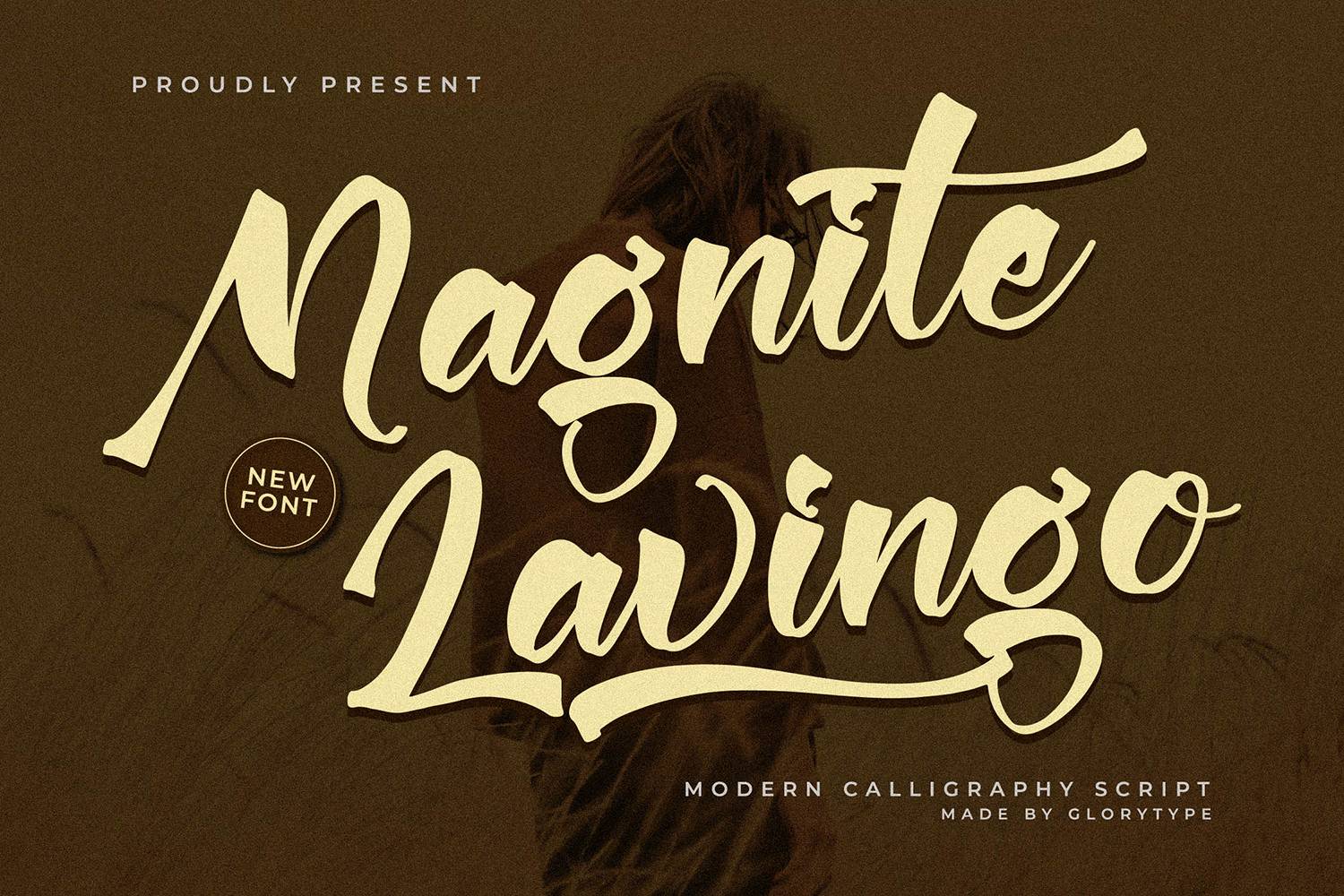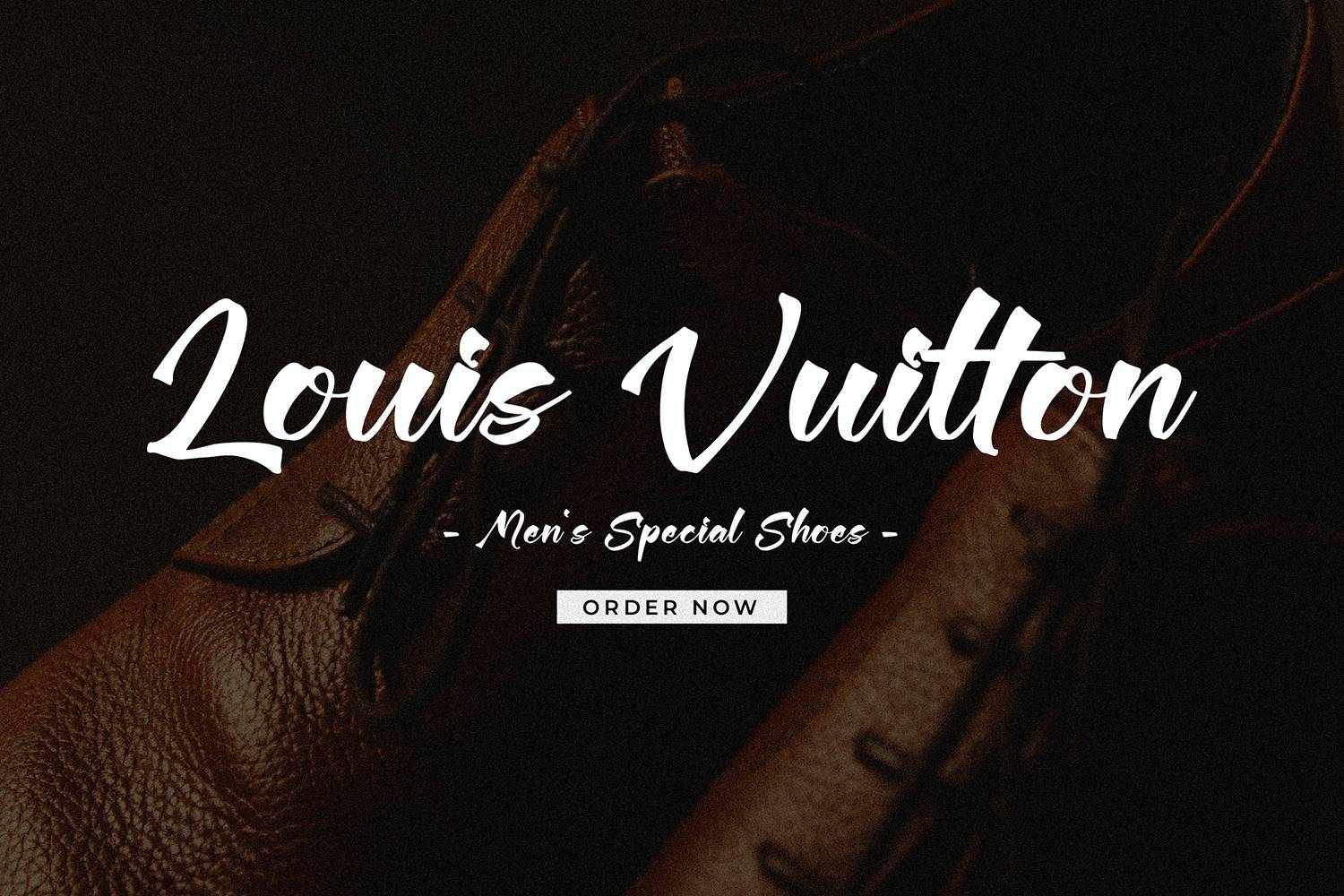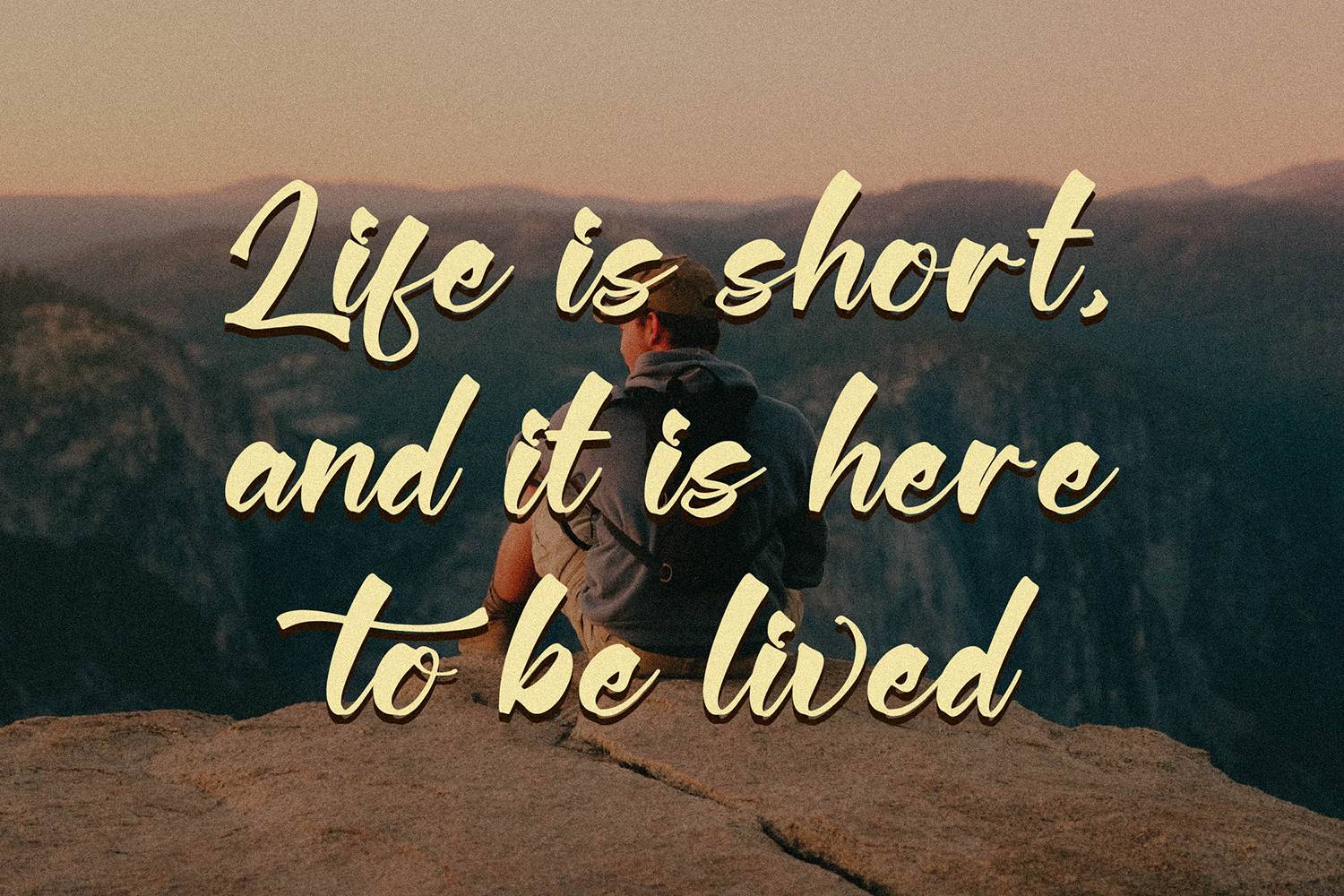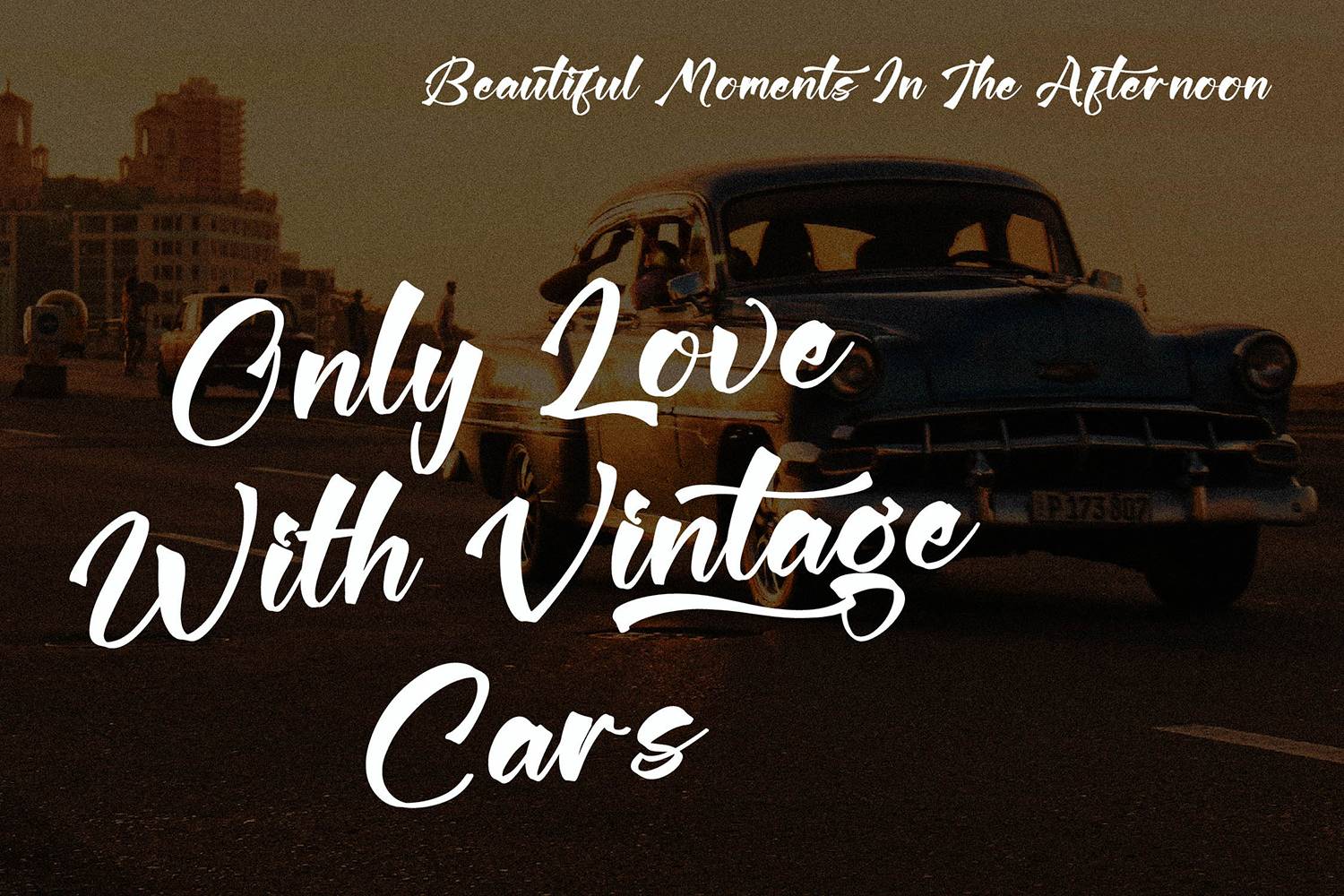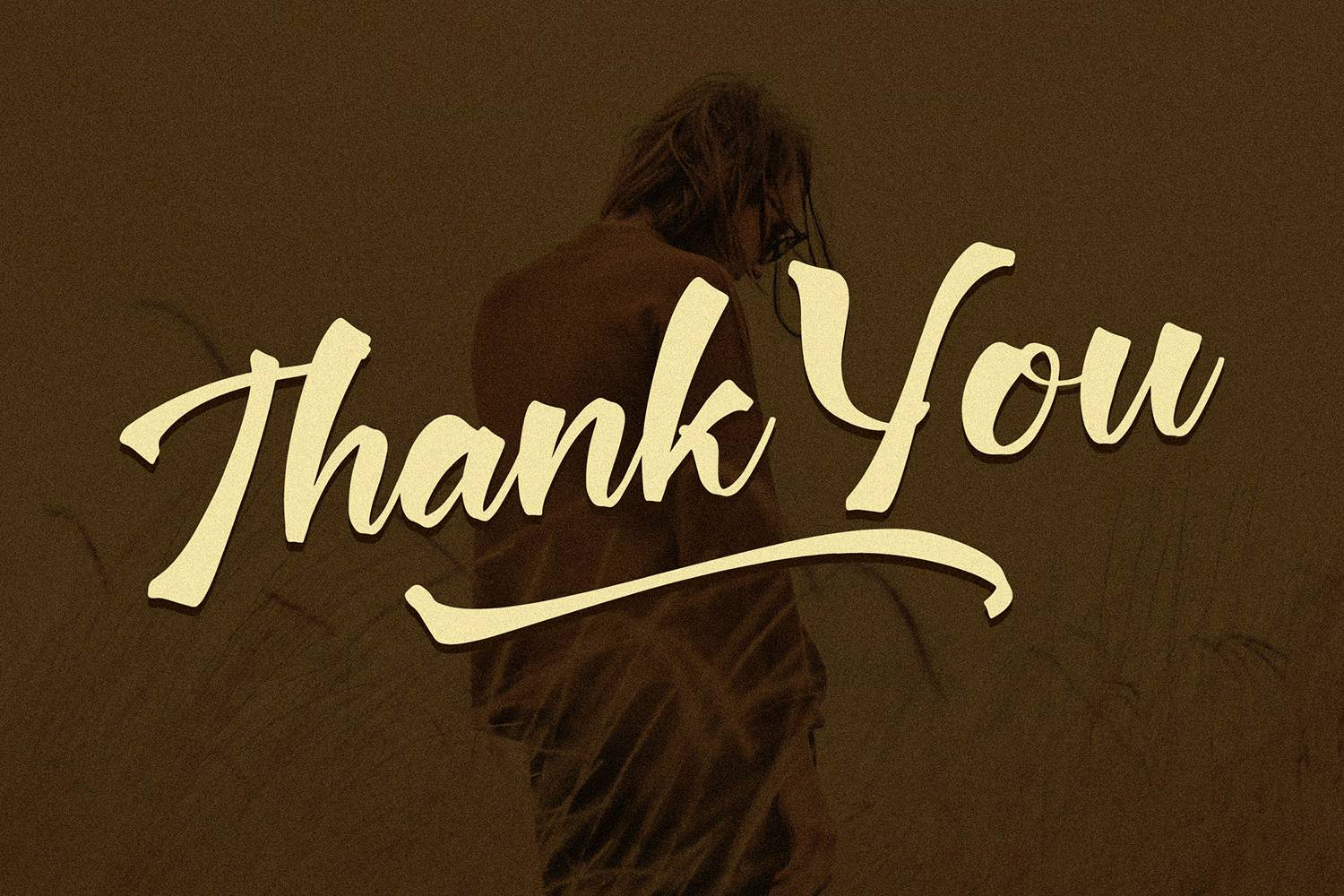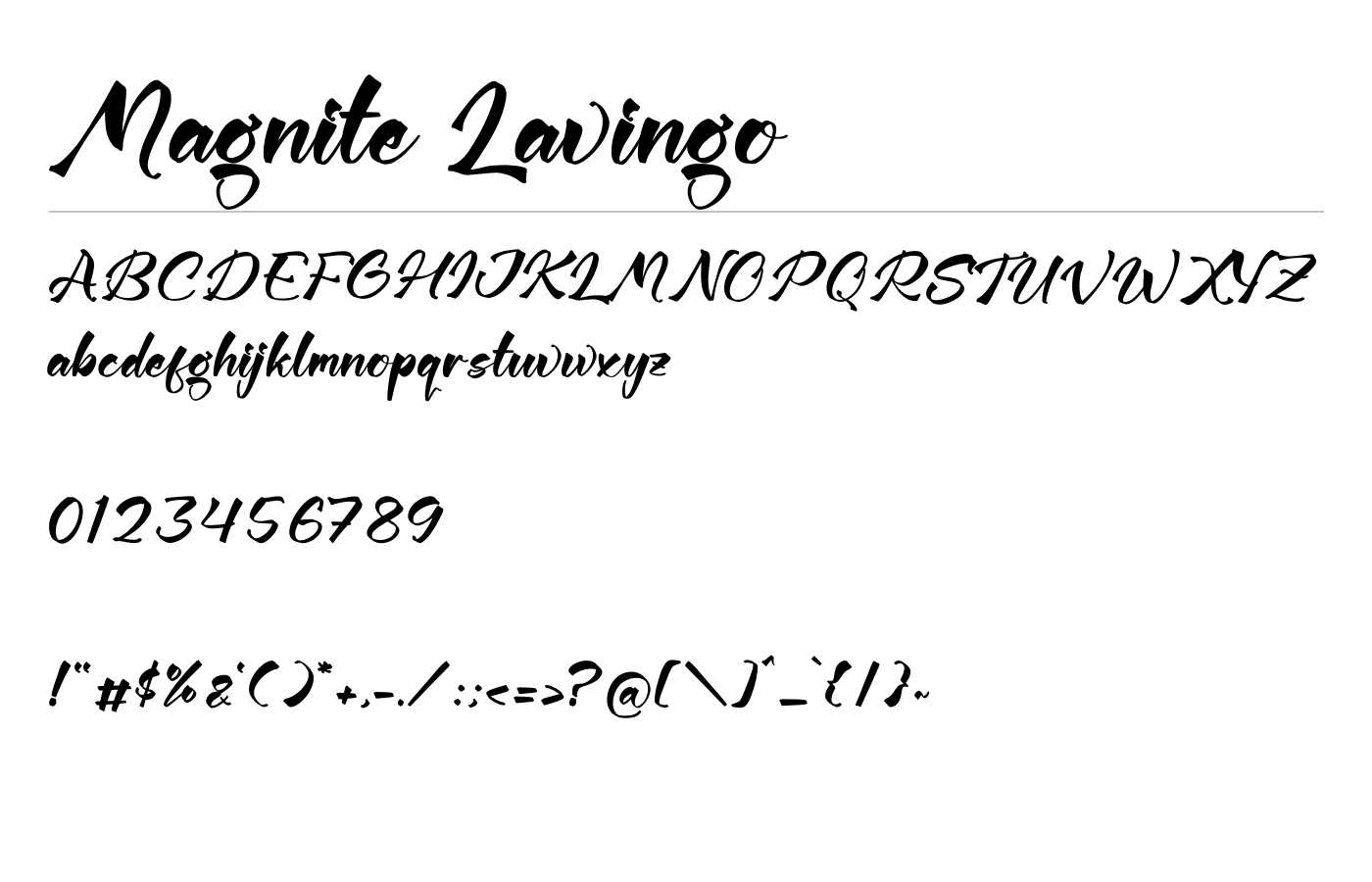
Magnite Lavingo is an elegant script font with a bold, brush-style appearance that combines smooth, flowing curves with a slightly rough texture, giving it a hand-painted, artistic vibe. Its dynamic letterforms and high contrast strokes make it perfect for stylish branding, invitations, and creative headlines where a personal yet confident touch is desired. This font works best for projects aiming to convey sophistication and creativity with a modern handwritten flair.
Magnite Lavingo Font
About Magnite Lavingo Font